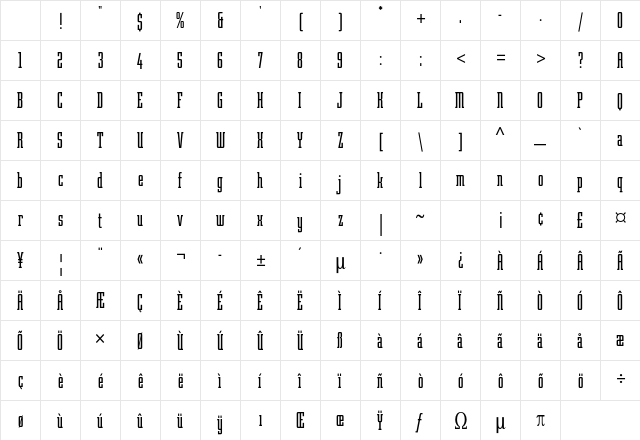
Robotik Std Regular
Designer: David Quay
Design Context for Robotik Std
Robotik Std is a composed and adaptable typeface that performs quietly and consistently across a wide range of design contexts.